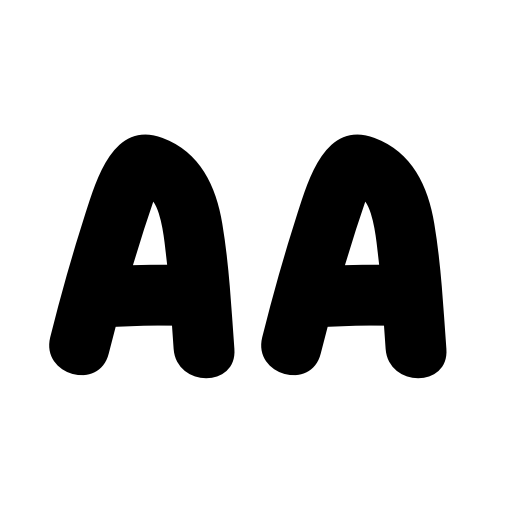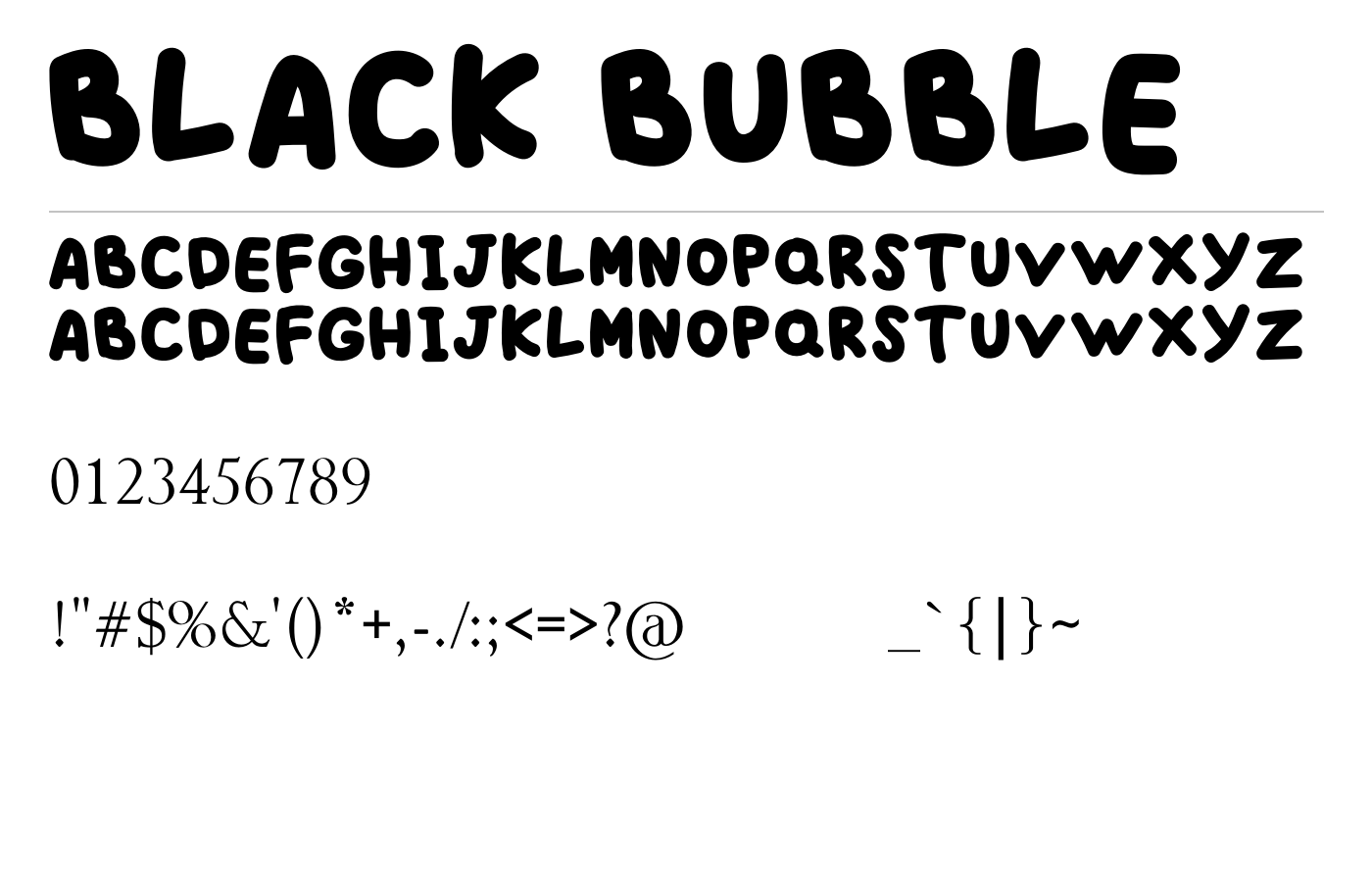
Black Bubble is a playful, bold sans-serif font with rounded, bubbly letterforms that give a friendly and approachable feel. Its thick strokes and casual style make it perfect for fun, informal designs like children's books, party invitations, or eye-catching headlines. This font works best when you want to add a cheerful, lively character to your project.
BLACK BUBBLE Font
About BLACK BUBBLE Font
| Font family | BLACK BUBBLE Font |